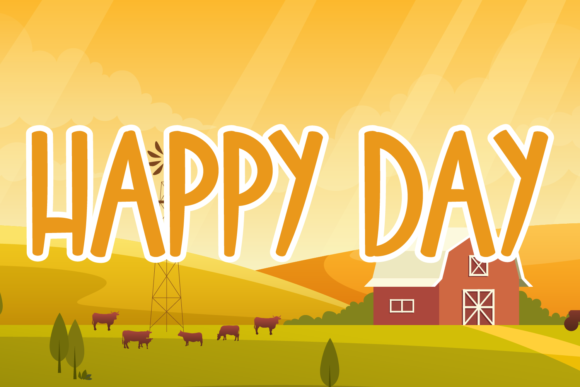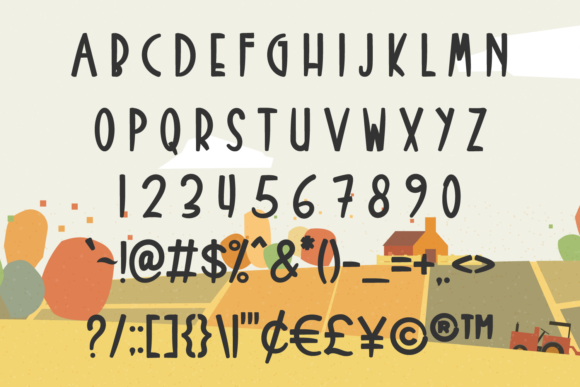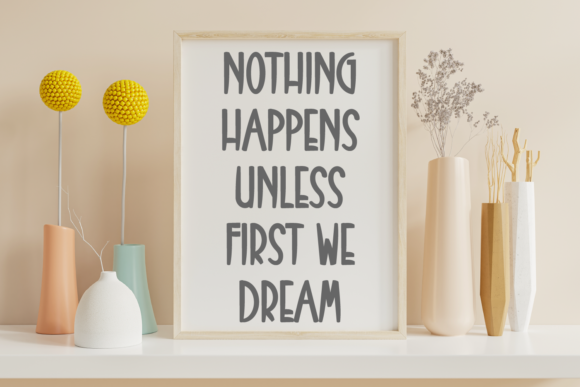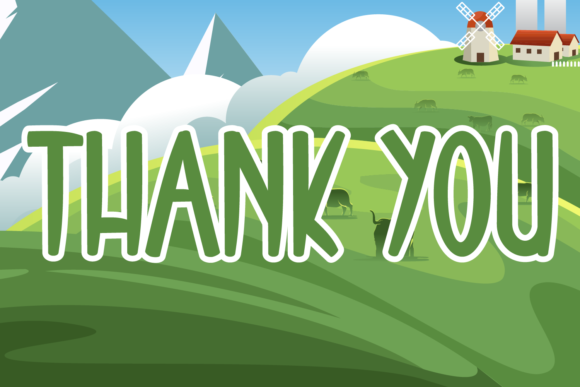
Discover the Charm of Farmhouse Font: Elevate Your Designs with a Cool and Casual Display Font
Are you on the hunt for a font that embodies the perfect blend of cool, casual, and creative? Look no further than the Farmhouse Font! This incredibly stylish display font is making waves in the design community, and for good reason. Its unique charm and character make it an ideal choice for designers, crafters, and anyone looking to add a personal touch to their projects.
The Essence of Farmhouse Font
Farmhouse Font is not just any ordinary font. It’s a statement piece, a design element that can instantly elevate your work from ordinary to extraordinary. With its beautifully crafted letters, each one infused with a unique touch, this font is sure to make your designs come alive. Whether you’re working on a logo, branding materials, or inspirational quotes, Farmhouse Font brings a level of sophistication and whimsy that’s hard to achieve with more traditional fonts.
Why Choose Farmhouse Font?
So, what sets Farmhouse Font apart from the countless other fonts available? Here are a few reasons why designers and crafters are falling in love with this font:
- Eyecatching Appeal: The Farmhouse Font is designed to grab attention. Its stylish and unique lettering makes it perfect for creating logos, headings, and titles that stand out.
- Versatility: Despite its strong personality, Farmhouse Font is surprisingly versatile. It can be used in a variety of design contexts, from rustic and vintage themes to modern and minimalist designs.
- Easy to Read: While the font has a casual and cool vibe, it’s also designed to be easy to read. This makes it perfect for quotes, sayings, and other textual content where readability is key.
- Unique Touch: Every letter in the Farmhouse Font has been carefully crafted to have its own unique character. This attention to detail adds a level of personality to your designs that’s hard to replicate with more generic fonts.
Using Farmhouse Font in Your Designs
The possibilities are endless when it comes to using Farmhouse Font in your designs. Here are a few ideas to get you started:
- Logos and Branding: Create a memorable logo or enhance your brand’s identity with the distinctive look of Farmhouse Font.
- Social Media Graphics: Add a personal touch to your social media posts and stories with eye-catching text overlays.
- Planners and Journals: Give your planners, journals, and other printables a stylish upgrade with Farmhouse Font.
- DIY Projects: Whether you’re making crafts, decorations, or gifts, Farmhouse Font can add a professional and stylish touch to your DIY projects.
Tips for Getting the Most Out of Farmhouse Font
To truly make Farmhouse Font shine in your designs, consider the following tips:
- Experiment with Colors: Farmhouse Font looks great in a variety of colors, but it’s especially striking in earth tones, pastels, and bold, bright hues.
- Play with Sizes: Don’t be afraid to mix and match different font sizes to create visual interest and hierarchy in your designs.
- Add Texture: For a more rustic or vintage look, consider adding texture to your text or background.
Farmhouse Font is more than just a display font; it’s a design statement. Its cool, casual vibe, combined with its unique and beautiful lettering, makes it the perfect choice for anyone looking to elevate their designs. Whether you’re a professional designer or a crafty DIY enthusiast, Farmhouse Font is sure to inspire and enhance your creative projects. So why wait? Discover the charm of Farmhouse Font today and take your designs to the next level!